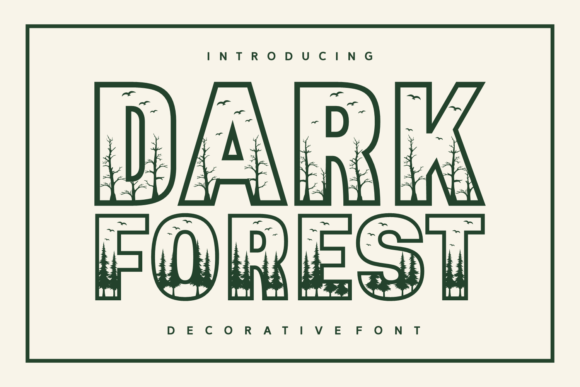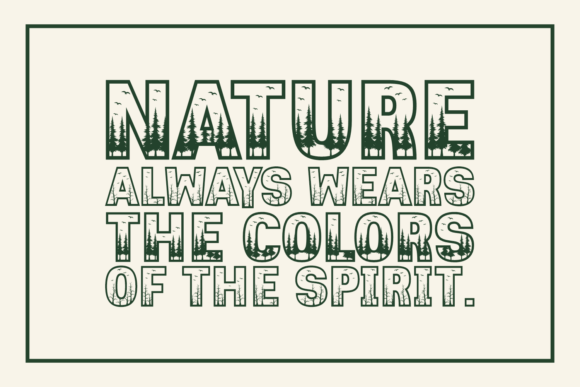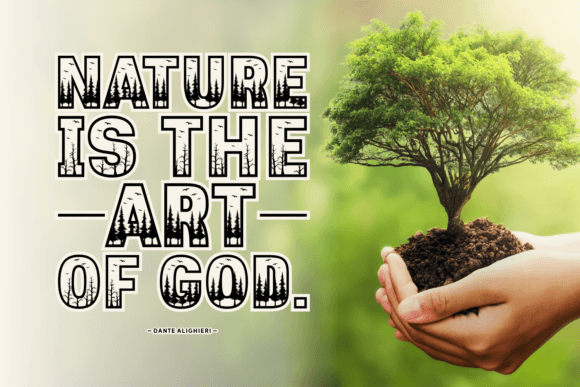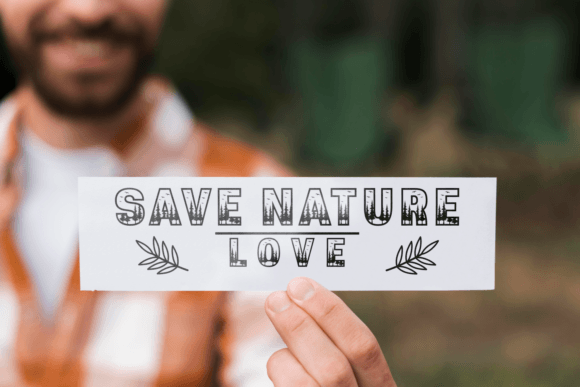
Dark Forest Font
About the Dark Forest Font
Crafted with precision, the Dark Forest Font is ready to bring your ideas to life. Dark Forest is a decorative font that is perfect for adding a unique and stylish touch to any design. It is often used to create eye-catching titles, logos, and other graphic elements. It’s a great way to bring a touch of creativity to your work!
Dark Forest excels in headlines, logos, and short, impactful text for branding projects. Its decorative nature makes it ideal for posters, invitations, and packaging where a strong visual statement is needed. However, its intricate details make it unsuitable for body text or UI elements requiring high readability.
The font possesses a bold and slightly mysterious personality. It’s well-suited to brands projecting power, sophistication, or a touch of the unconventional. Consider pairing it with a clean sans-serif like Helvetica Neue for contrast, or a more organic serif like Garamond for a touch of classic elegance. A simple script font could add a layer of refined detail.
Avoid pairing it with other heavily decorated fonts, which would create visual clutter. For maximum impact, use Dark Forest sparingly, letting its unique forms speak for themselves.
Dark Forest Font Usage Examples
Dark Forest Font Example